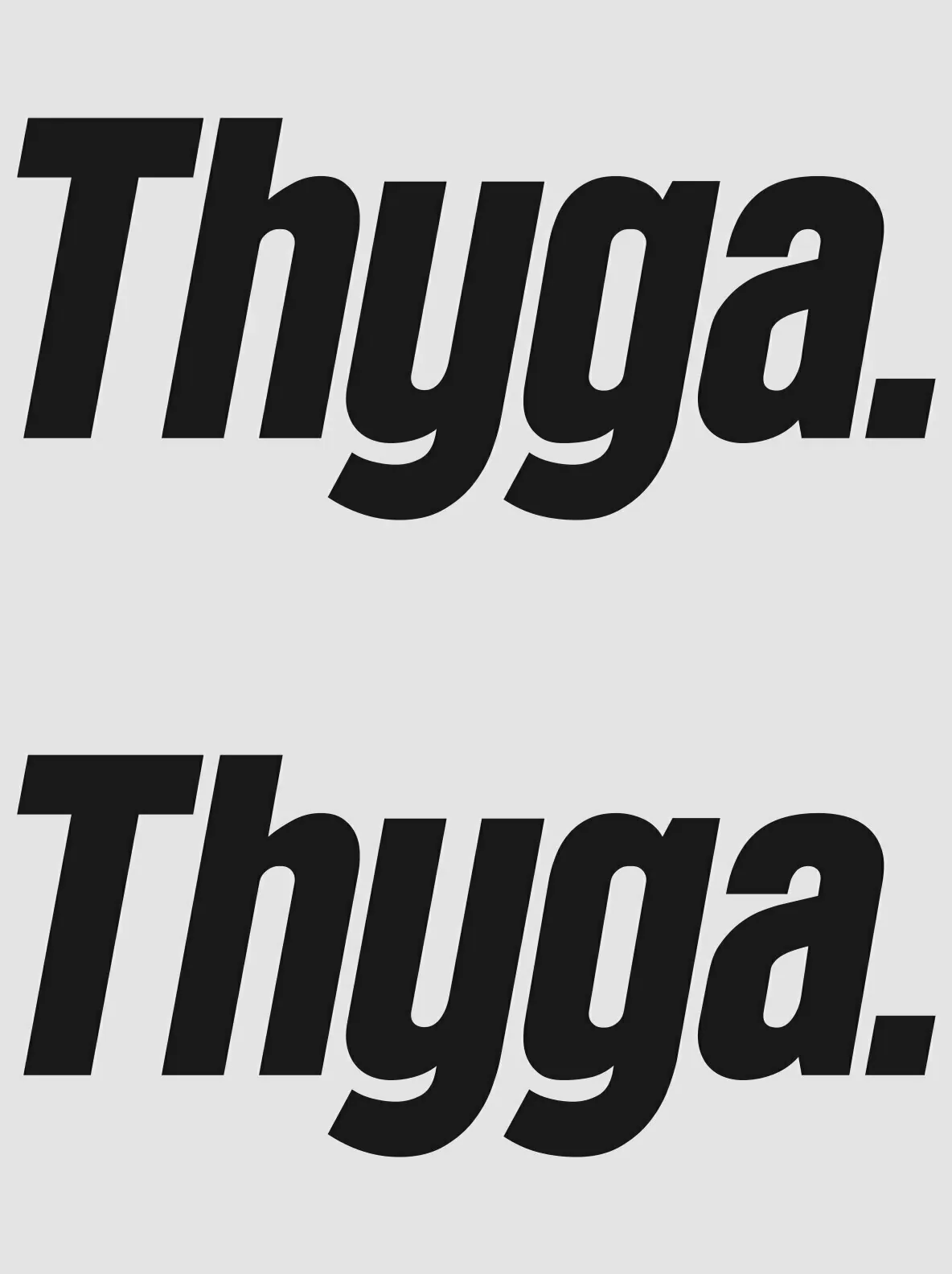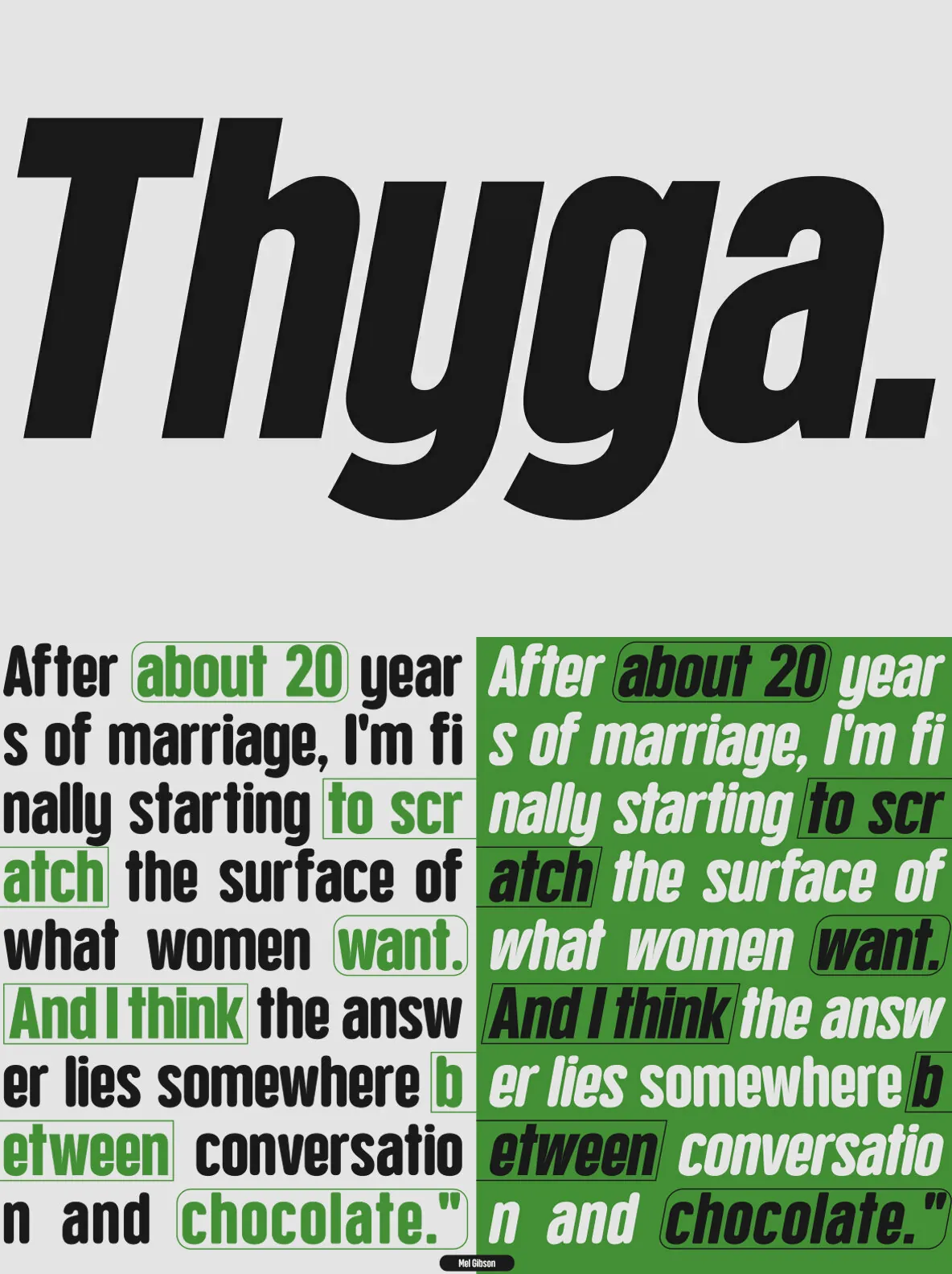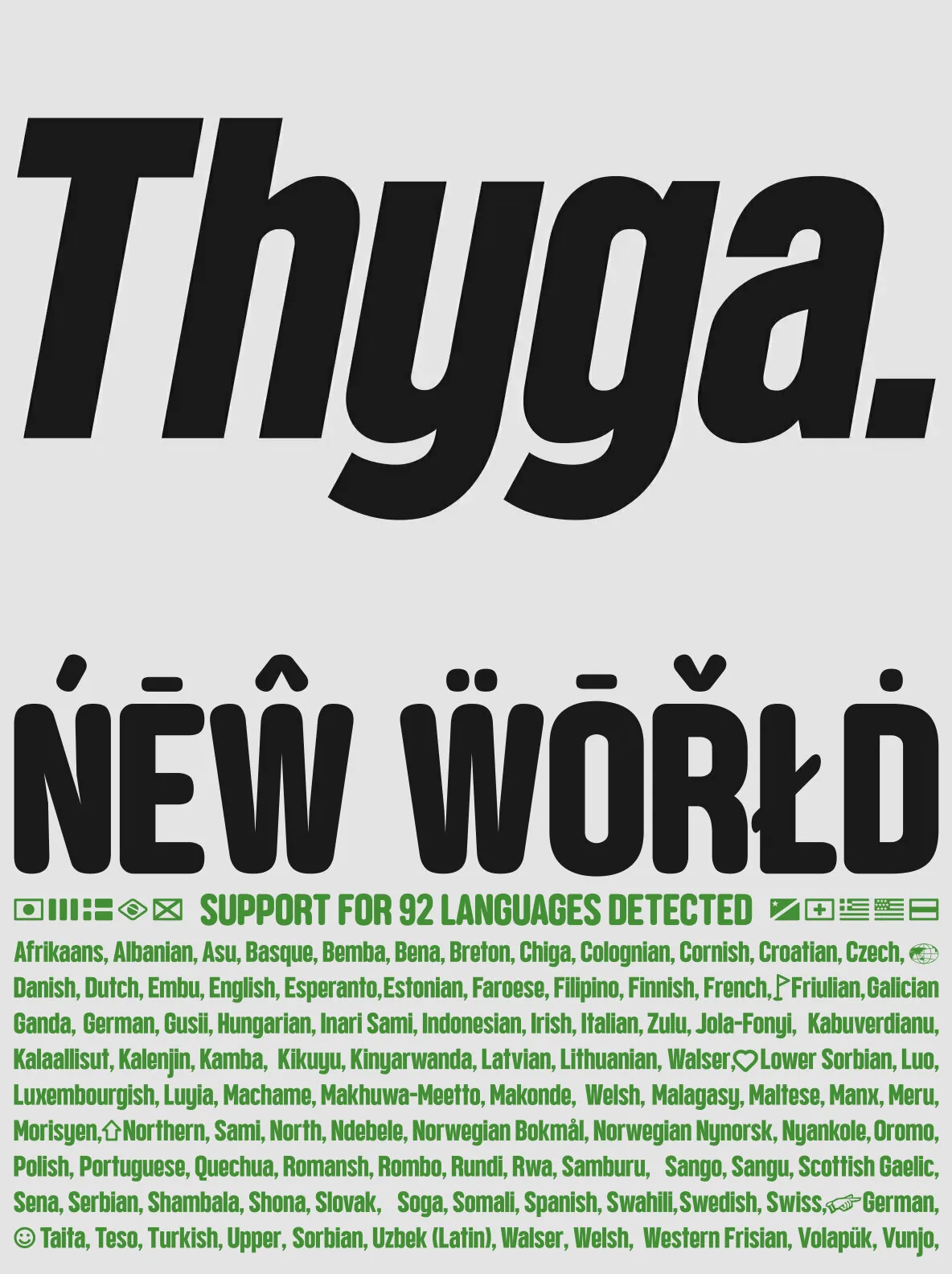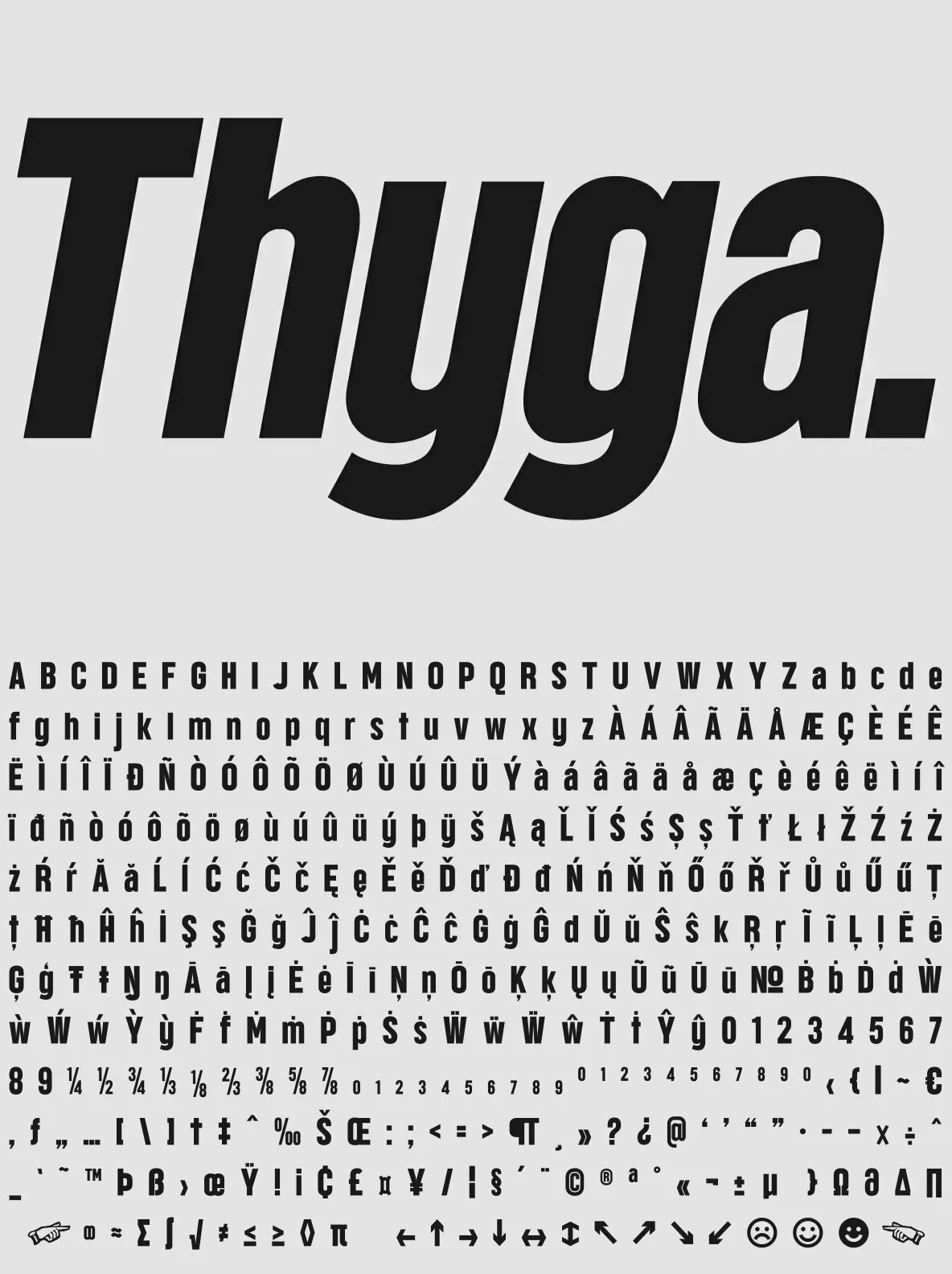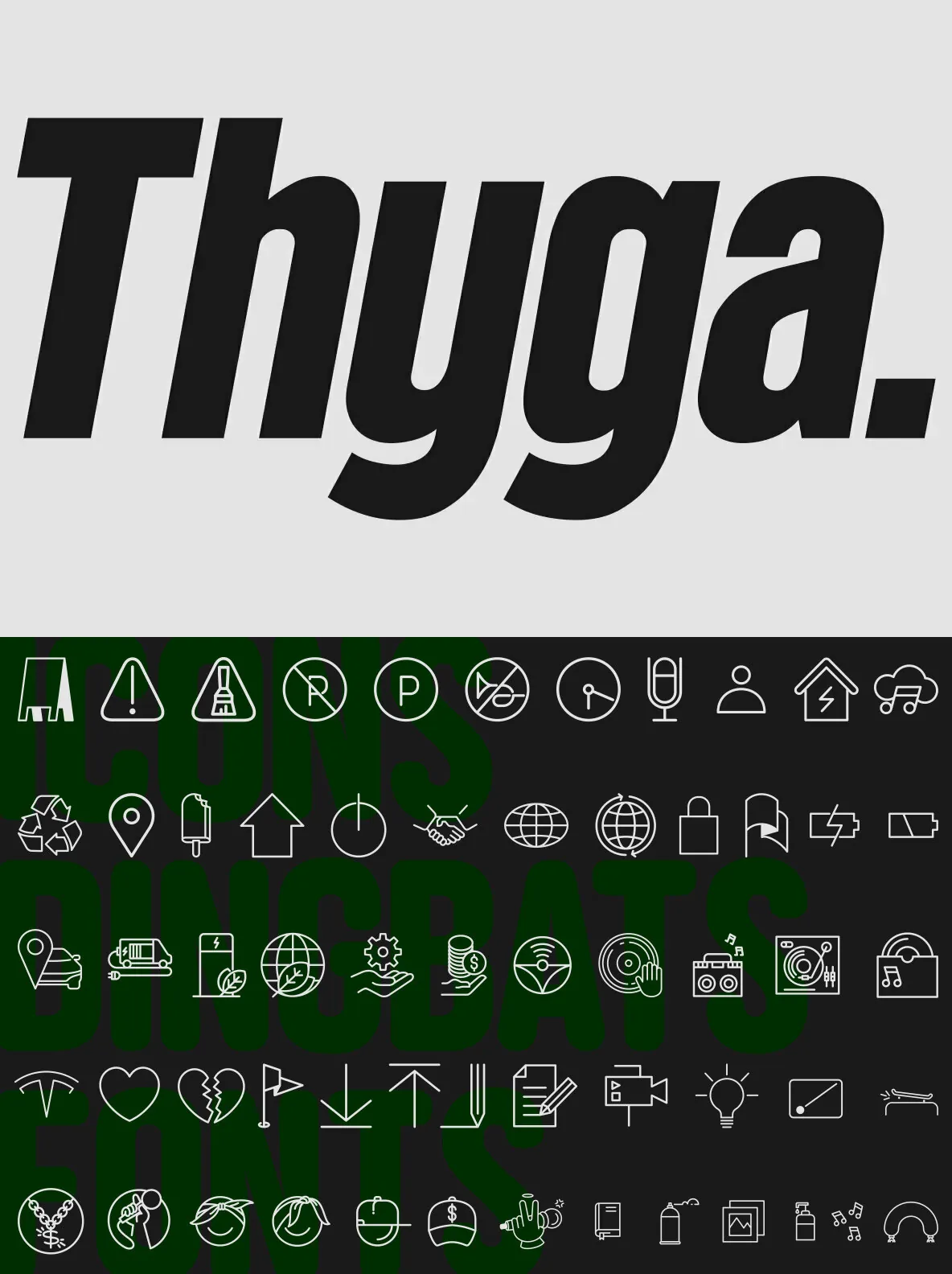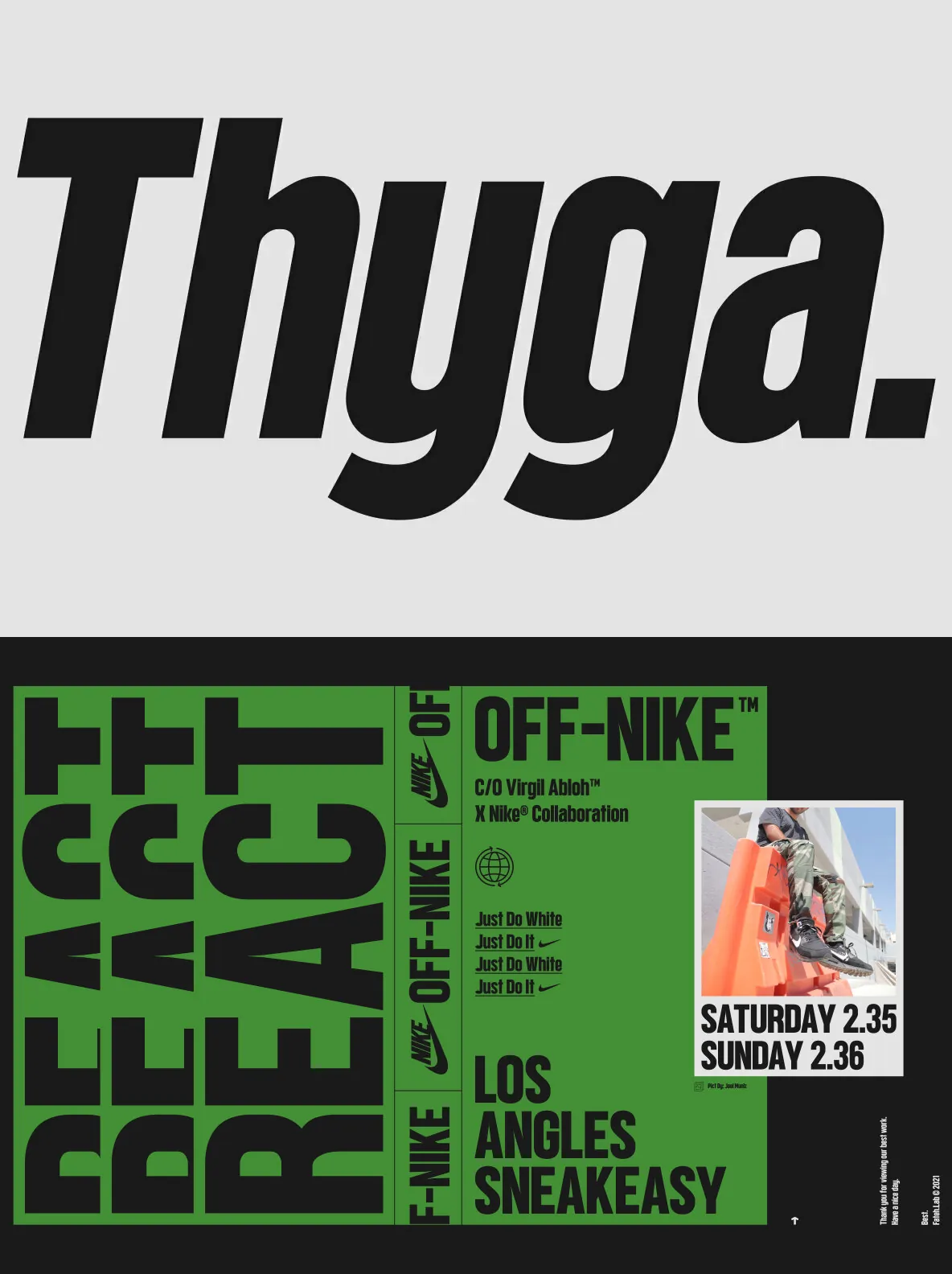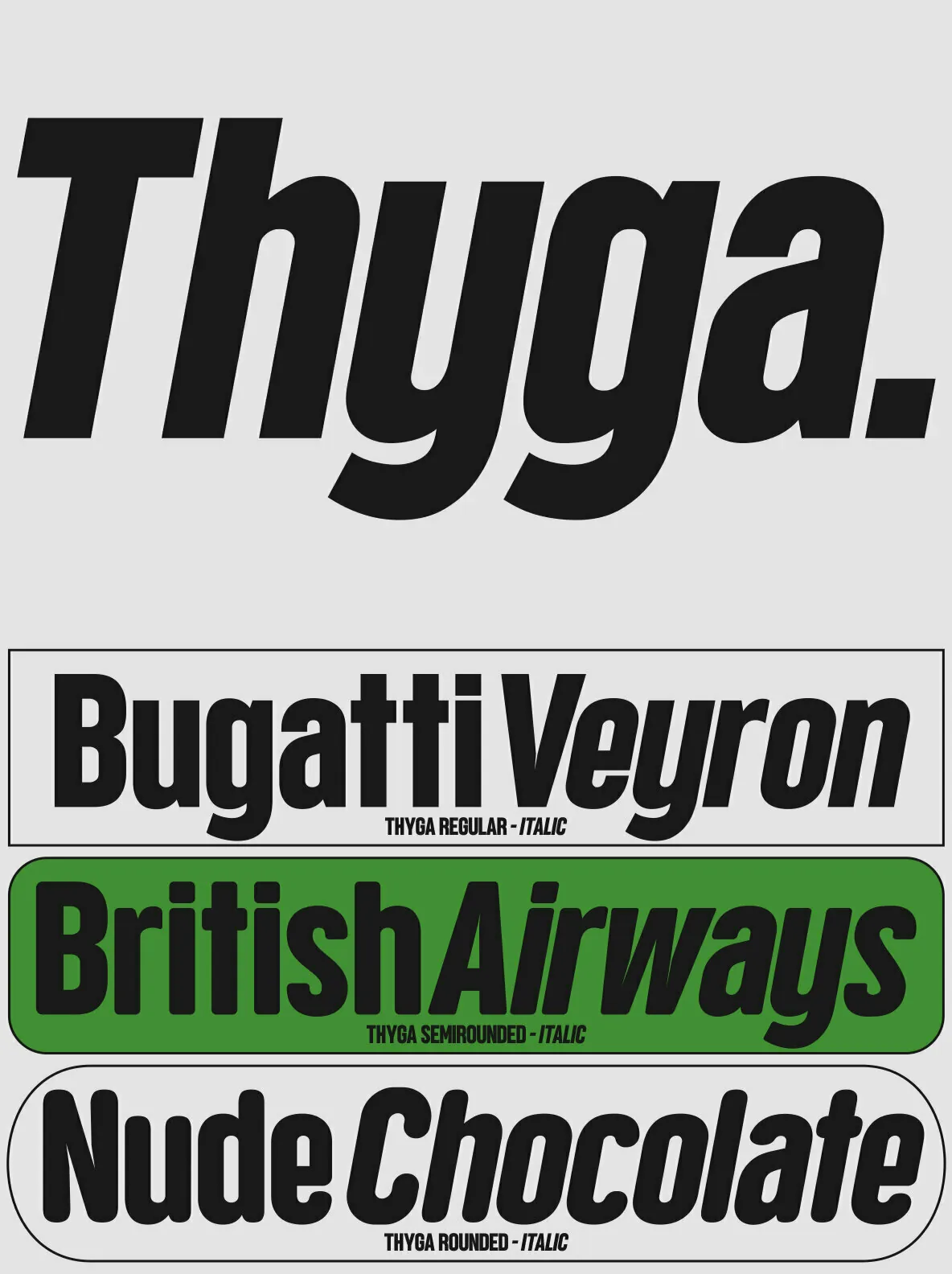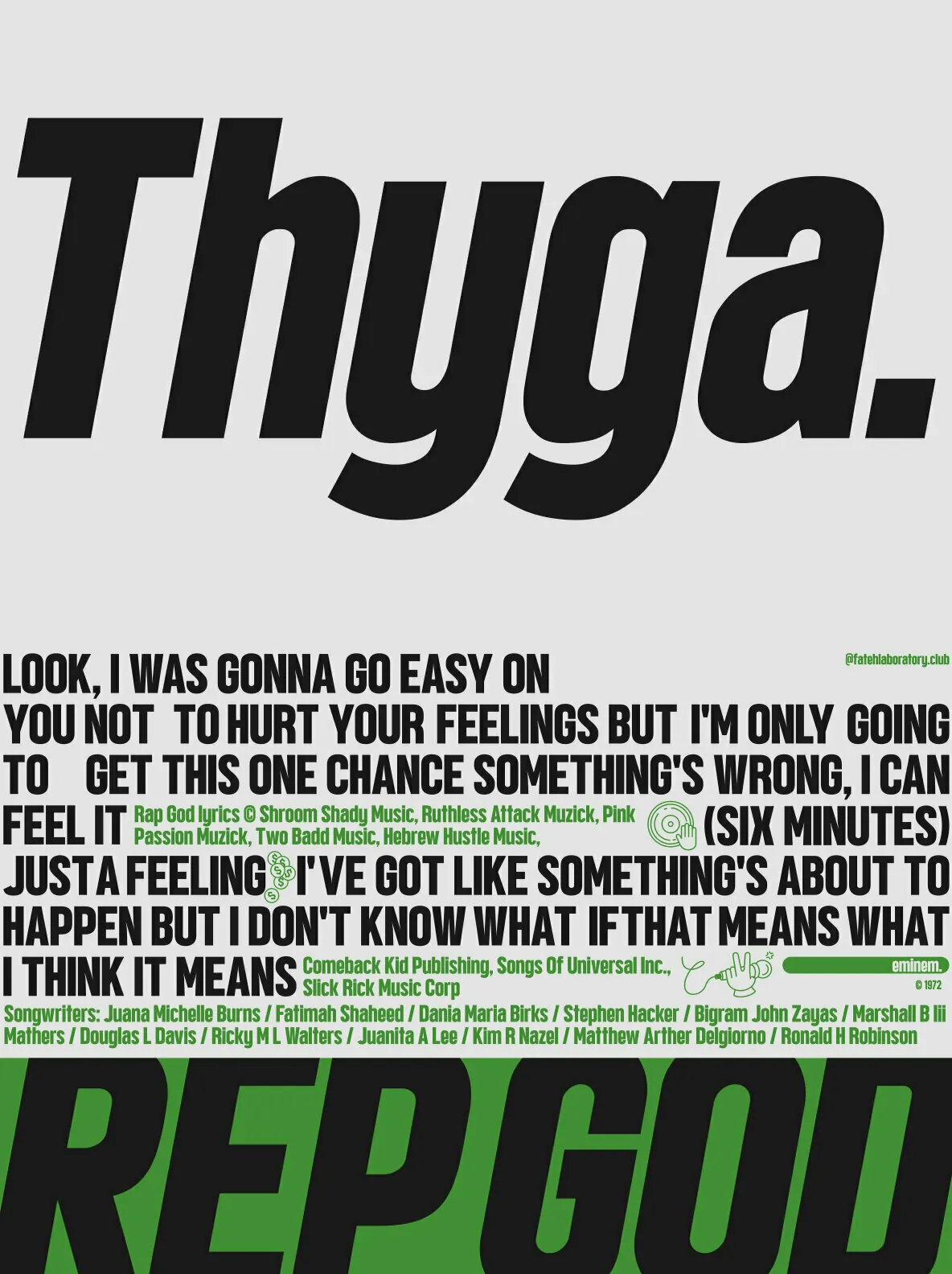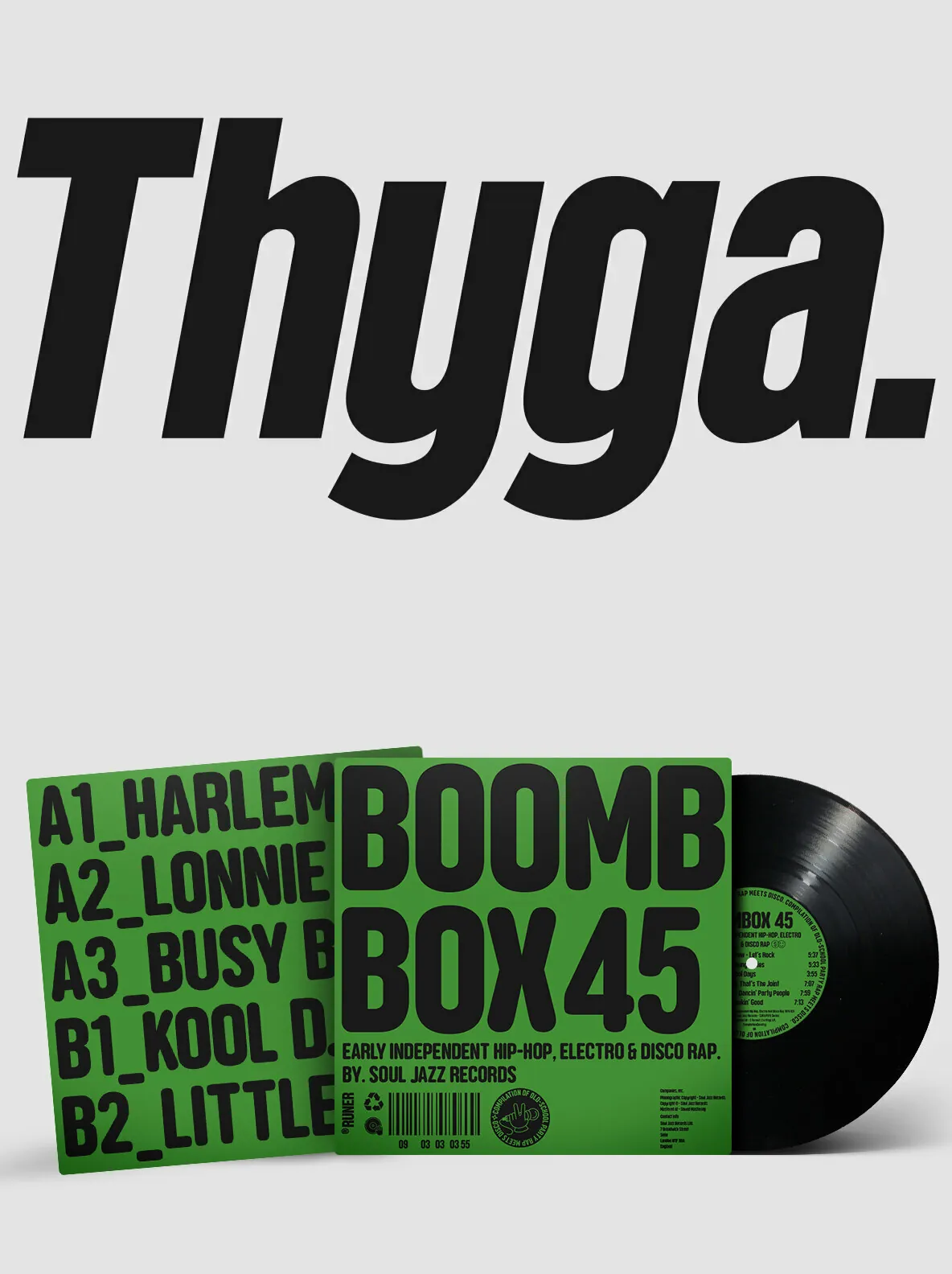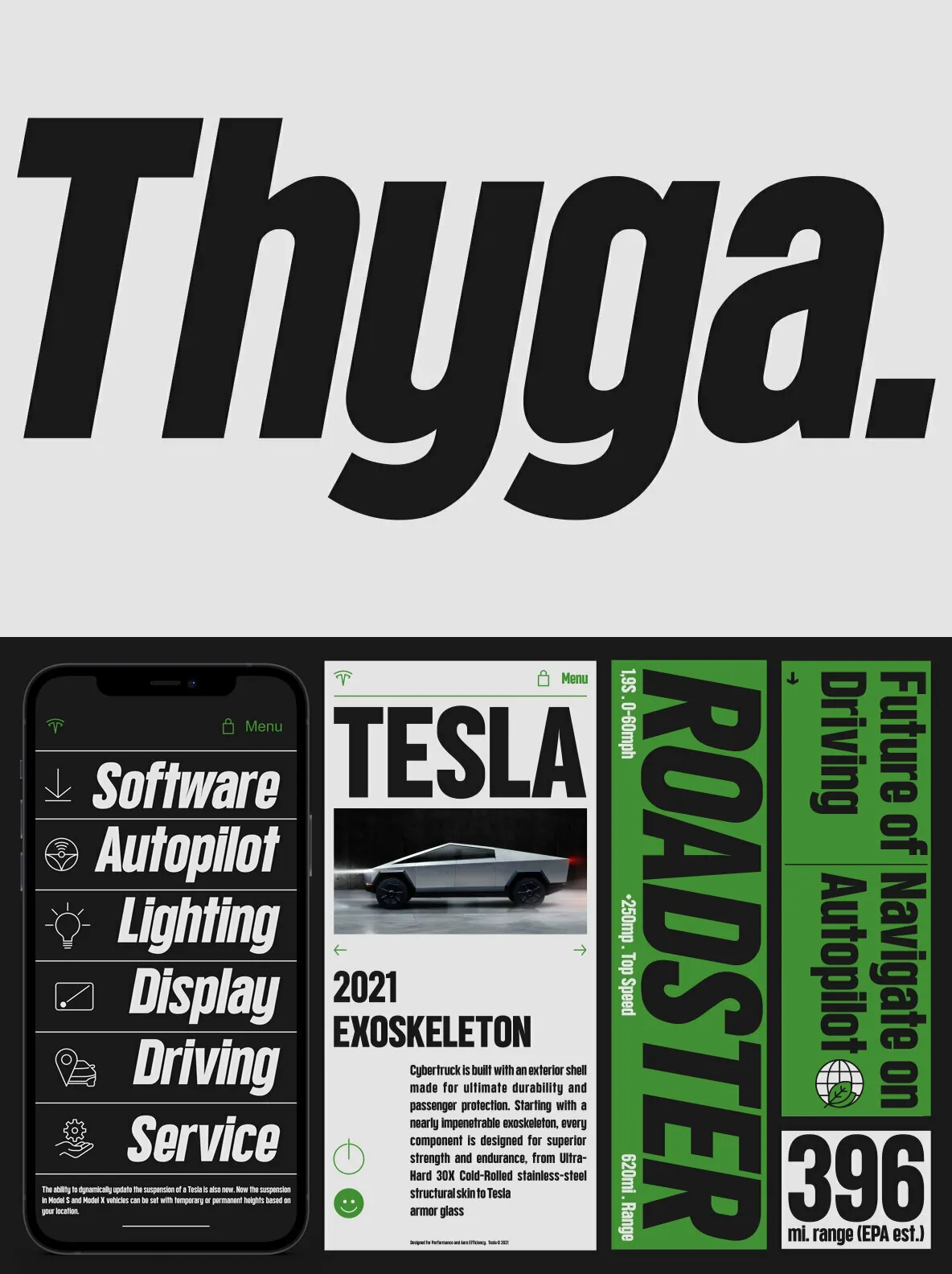
Thyga Font
Thyga: Clear Sans for Confident Layouts
A sans serif typeface designed for clean, contemporary typography across digital and print work. Thyga keeps a straightforward tone that suits UI, branding, editorial layouts, and everyday design systems where clarity matters.
Published by Fateh.Lab, Thyga fits projects that need a modern sans serif voice without distraction. Use it for headings, supporting text, and interface copy where consistent rhythm and simple forms help content read smoothly.